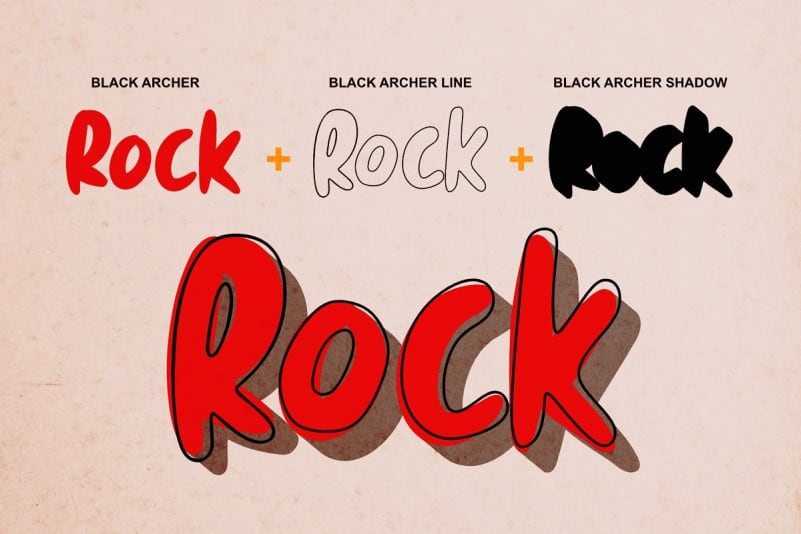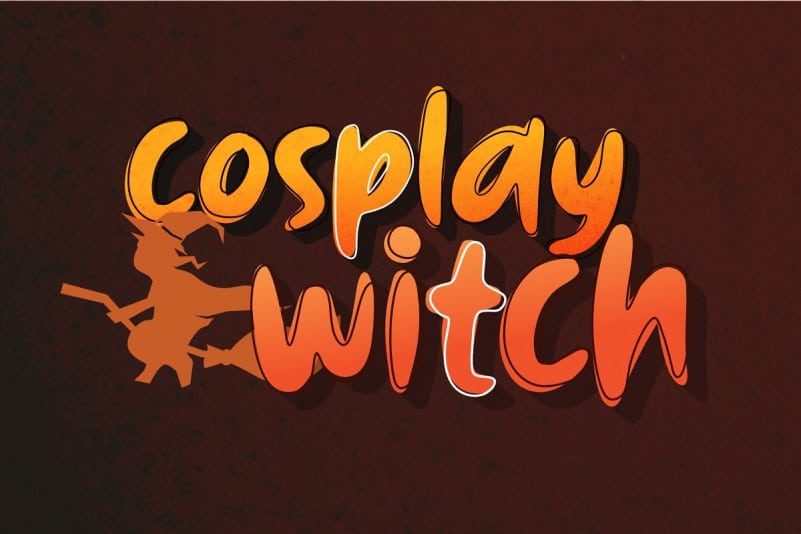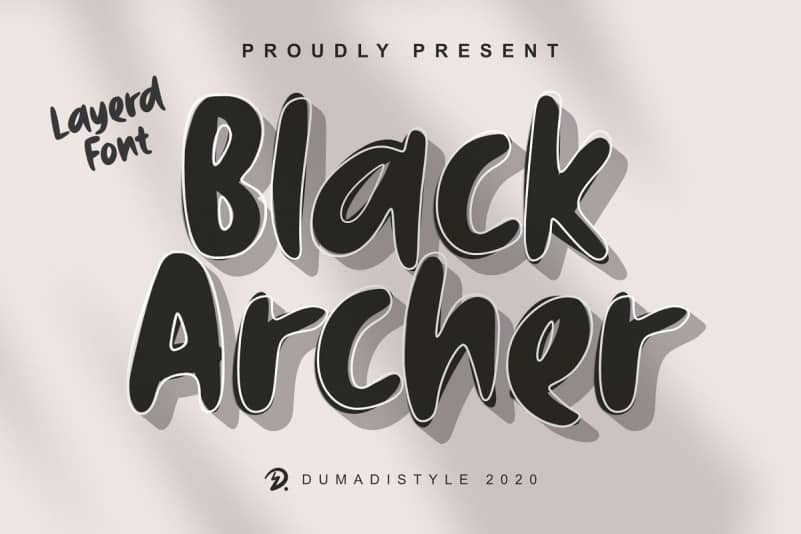
Black Archer Display Font is a Authentic brush font with added layers of lines and shadows this font is great for your next creative project such as logos, printed quotes, invitations, cards, product packaging, headers, Logotype, Letterhead, Poster, Apparel Design, Label.
Black Archer Display Font lends itself to messy designs with an amazing sense of art. You will find the sensation if this font collaborates with your design, good luck!